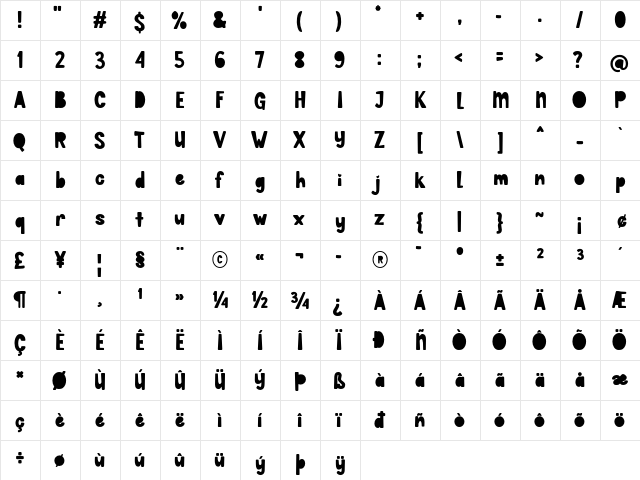
Do It with Love Two Regular Font Preview
Do It with Love Two Regular
Do It with Love Two Regular Font Details
| Foundry | 7NTypes |
| Designer | Jasman Nazara; Situjuh Nazara |
Design Context for Do It with Love Two Typeface
Do It with Love Two offers clean, dependable letterforms without strong stylistic allegiance, making it a practical choice for designers who need flexibility.